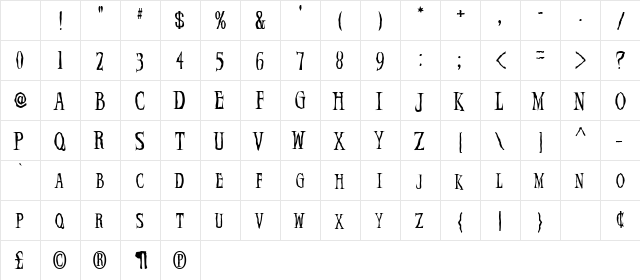
Complete Demon Night glyph index. Displaying only characters natively supported by Demon Night font.
Demon is a composed and adaptable typeface that performs quietly and consistently across a wide range of design contexts.